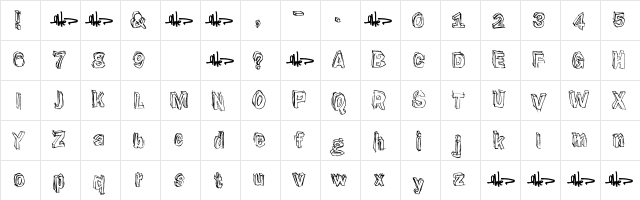
Complete Suppenkasper Regular glyph index. Displaying only characters natively supported by Suppenkasper Regular font.
Suppenkasper is a composed and adaptable typeface that performs quietly and consistently across a wide range of design contexts.
Who designed the Suppenkasper Regular font?
This font was published by Andre Waitz. Check the technical specs section for copyright and designer details.